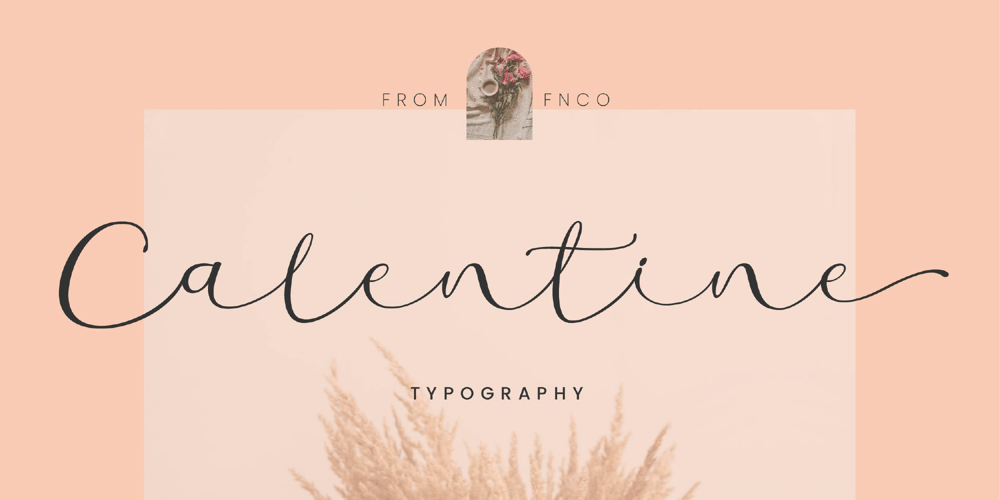
Calentine Font Family was designed by Achmad Yani and published by Flawlessandco. Calentine contains 1 styles and family package options. Calentine is a handcrafted script, that gives a feel of girly font type.An Original typeface that suitable for any graphic designs such as branding materials, t-shirt, print, business cards, logo, poster, t-shirt, photography, quotes .etcThis font support for some multilingual. Handcrafted Script that contains uppercase A-Z and lowercase a-z, alternate character, numbers 0-9, and some punctuation.If you need help, just write me! Thanks so much for checking out my shop!